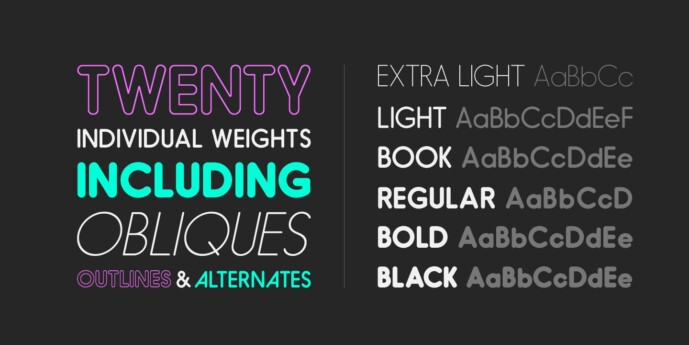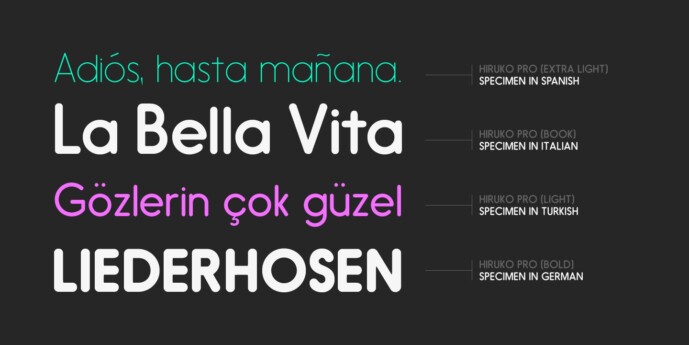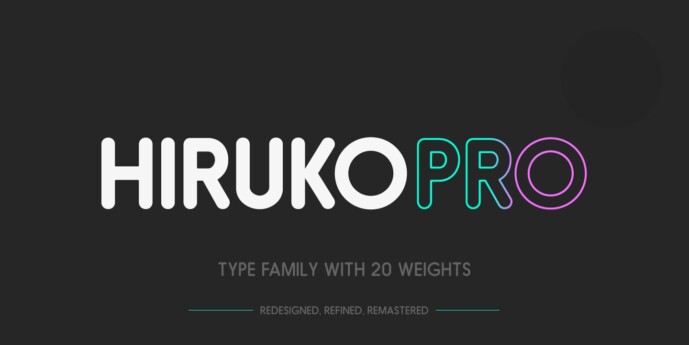
Hiruko Pro Font Family
Designer: HyperFluro
Hiruko Pro Font Family is a modern and legible font cleverly combining smooth lines and playful curves. It’s a complete revamp of the original 2008 Hiruko family. With its softened edges, it emits a family friendly, kids welcome vibe and is easily legible in any situation. With a full family of 21 weights, varying from bold and attention-grabbing, to slick and smart outlines, to extra light and delicate, Hiruko Pro has a tonne of applications, and we still come across new ones.